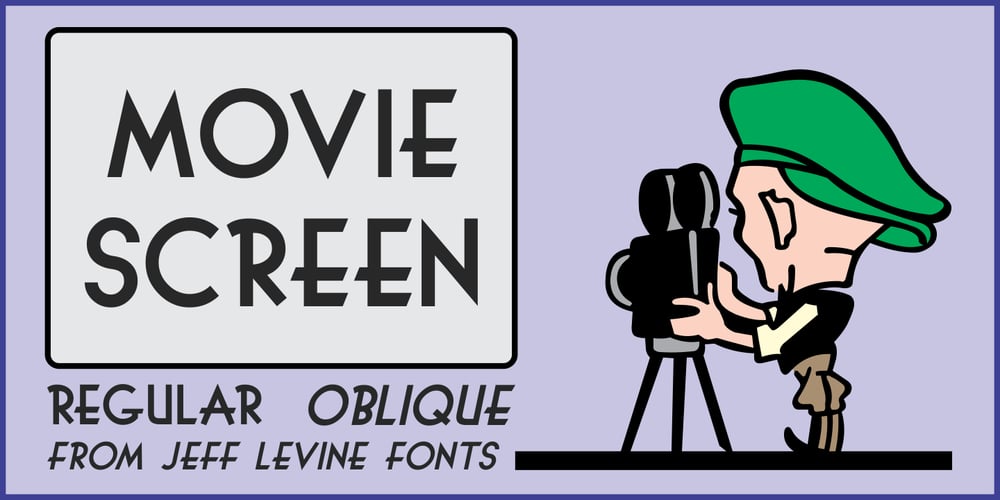
Movie Screen JNL Font Family was designed by Jeff Levine and published by Jeff Levine. Movie Screen JNL contains 2 styles and family package options. The hand lettered opening titles from the 1944 Laurel and Hardy comedy “The Big Noise” served as the inspiration for Movie Screen JNL, which is available in both regular and oblique versions.